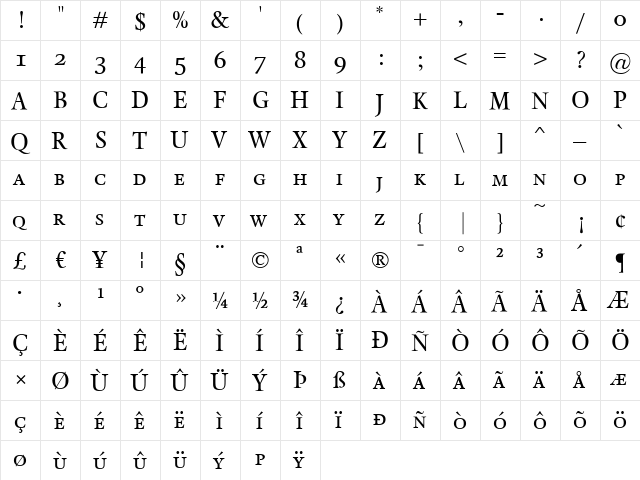
KalixSmallCaps Medium Font Preview
KalixSmallCaps Medium
Design Context for KalixSmallCaps Typeface
KalixSmallCaps offers clean, dependable letterforms without strong stylistic allegiance, making it a practical choice for designers who need flexibility.